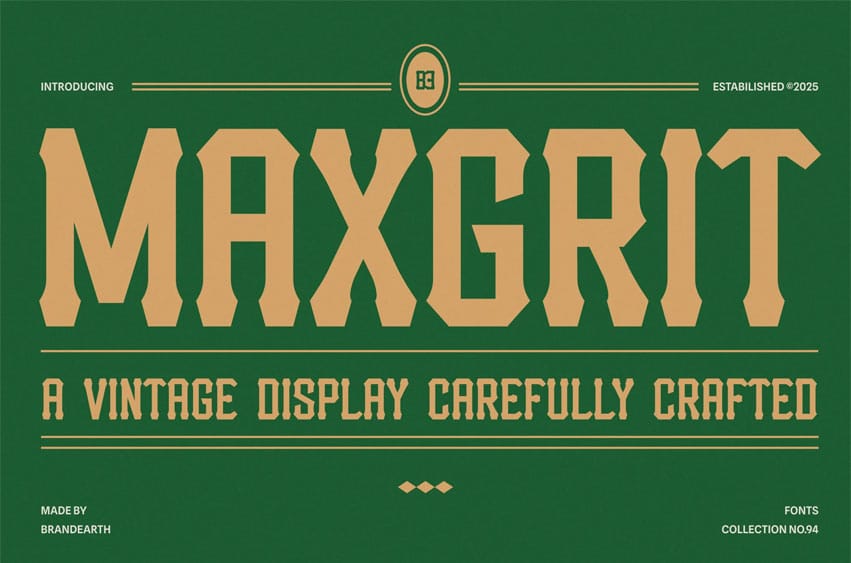
Maxgrit Font is a bold vintage display font designed with sharp geometric cuts and a strong masculine feel. Its letterforms are highly structured, featuring slab-like edges that resemble transitional serifs but with a modernized, blocky execution. This makes it an excellent choice for projects requiring an impactful and rugged aesthetic, from sports branding and posters to packaging and signage. The font supports uppercase letters, numbers, and punctuation, making it versatile for both digital and print applications. Available in OTF and TTF formats, Maxgrit combines the grit of retro display typography with the clarity of contemporary design.
Relevance and Use Cases are perfect for logo design, sports branding, poster design, signage, advertising, packaging, merchandise, editorial layout, motivational quotes, event promotion, banner design, billboard typography, creative campaigns, corporate branding, music cover, retro revival projects, print media, lifestyle products, and premium stationery.